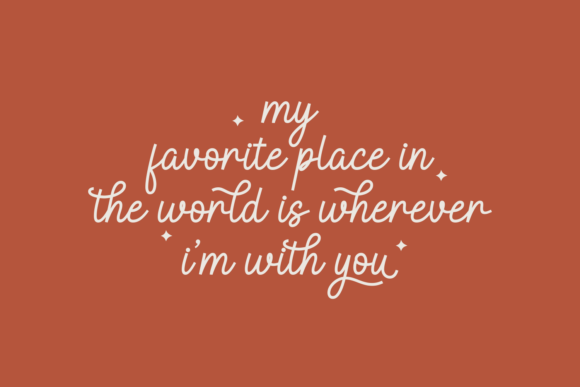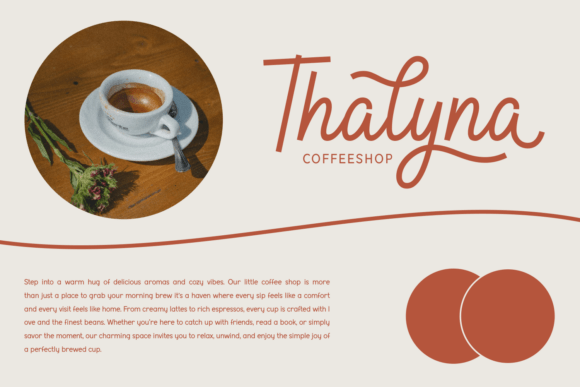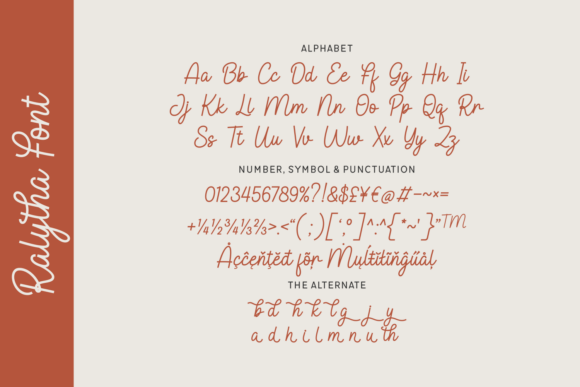
Introduction to Ralytha Font
Ralytha is a lively handwritten monoline script font that blends playful energy with casual elegance.
Its bold yet soft strokes, flowing connections, and subtle bounce make it a fantastic choice for logos, lifestyle branding, social content, and anything that needs a friendly, handcrafted vibe Ralytha is charming, modern, and full of personality.
Key Features of Ralytha Font